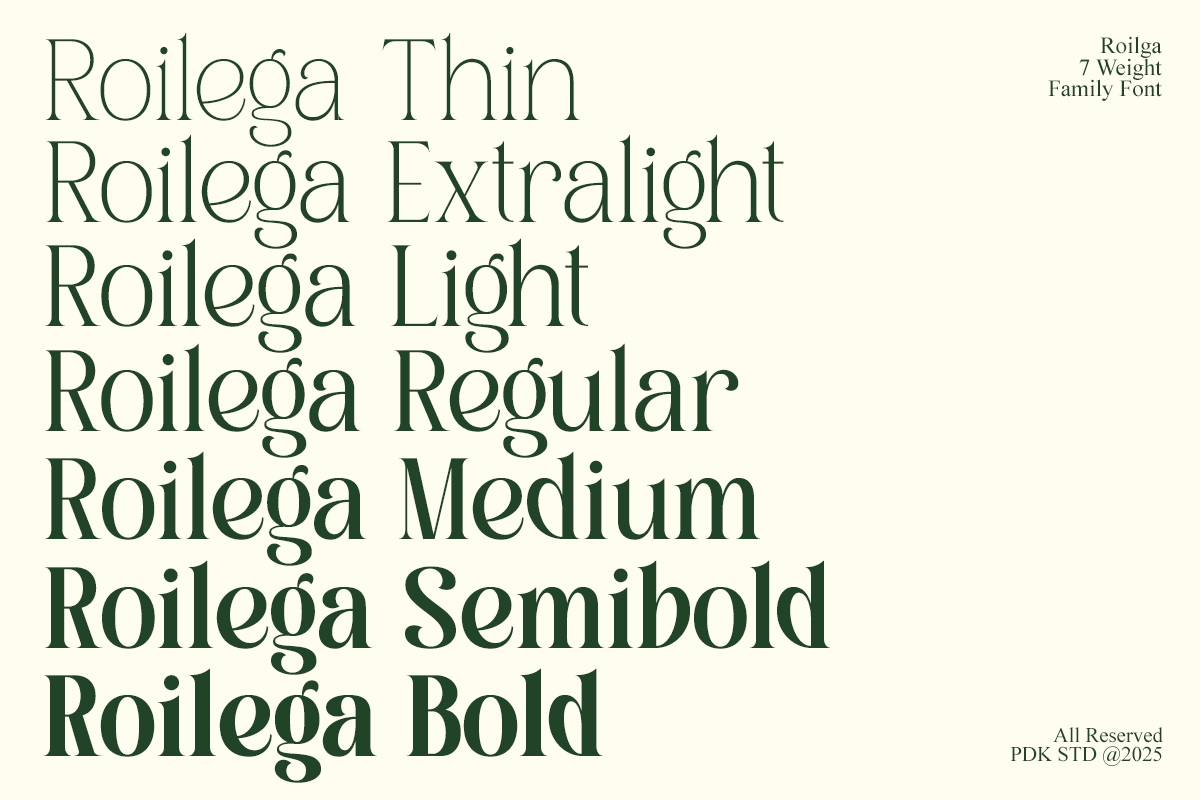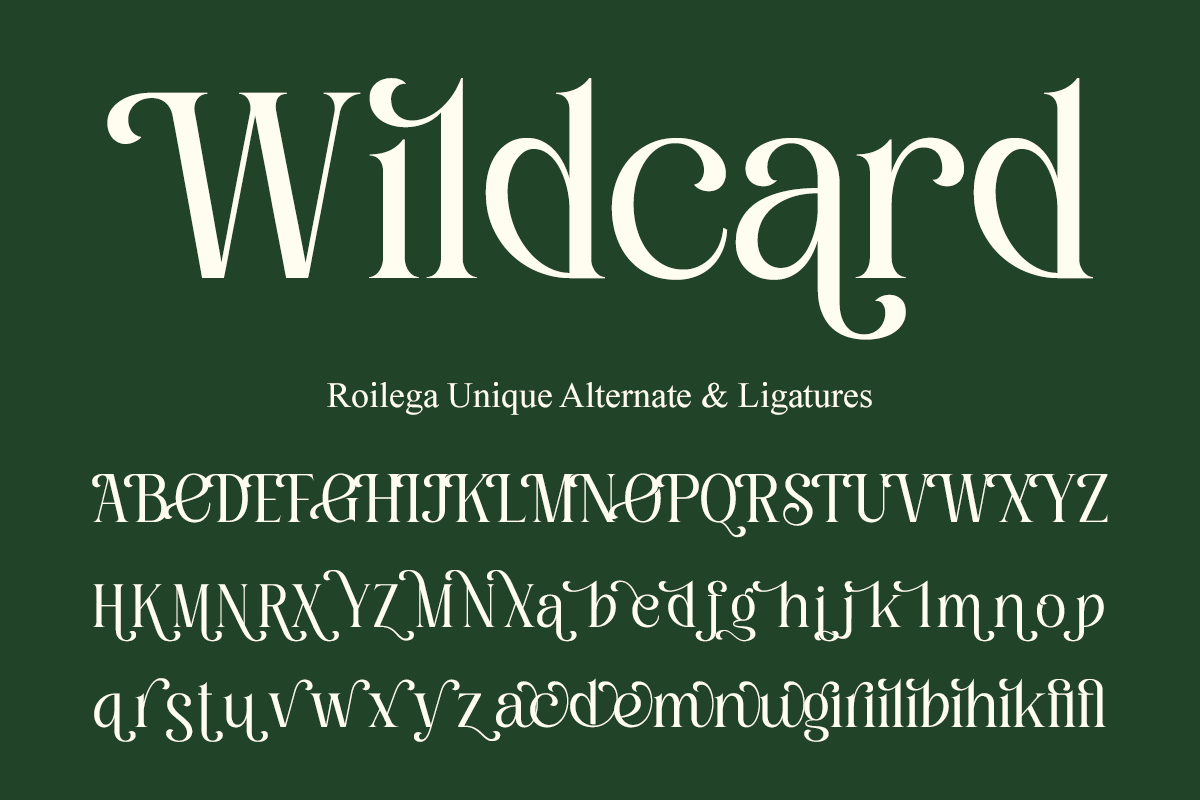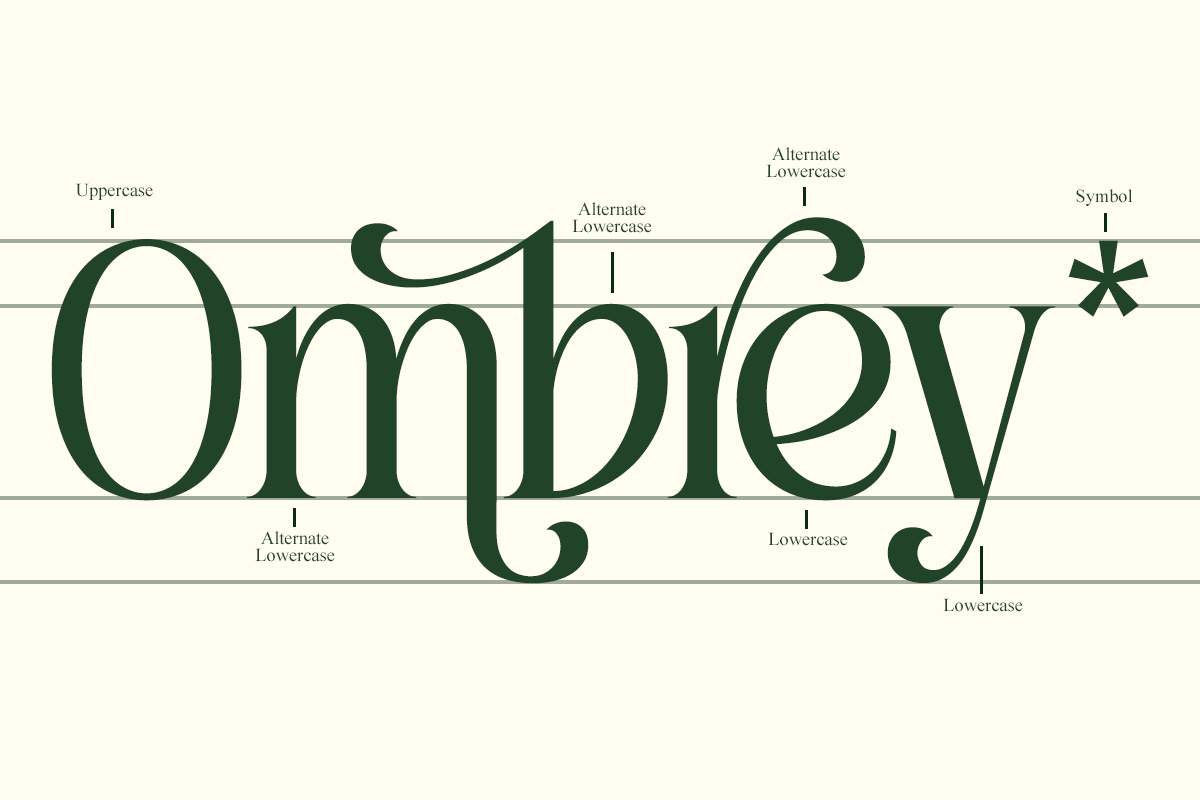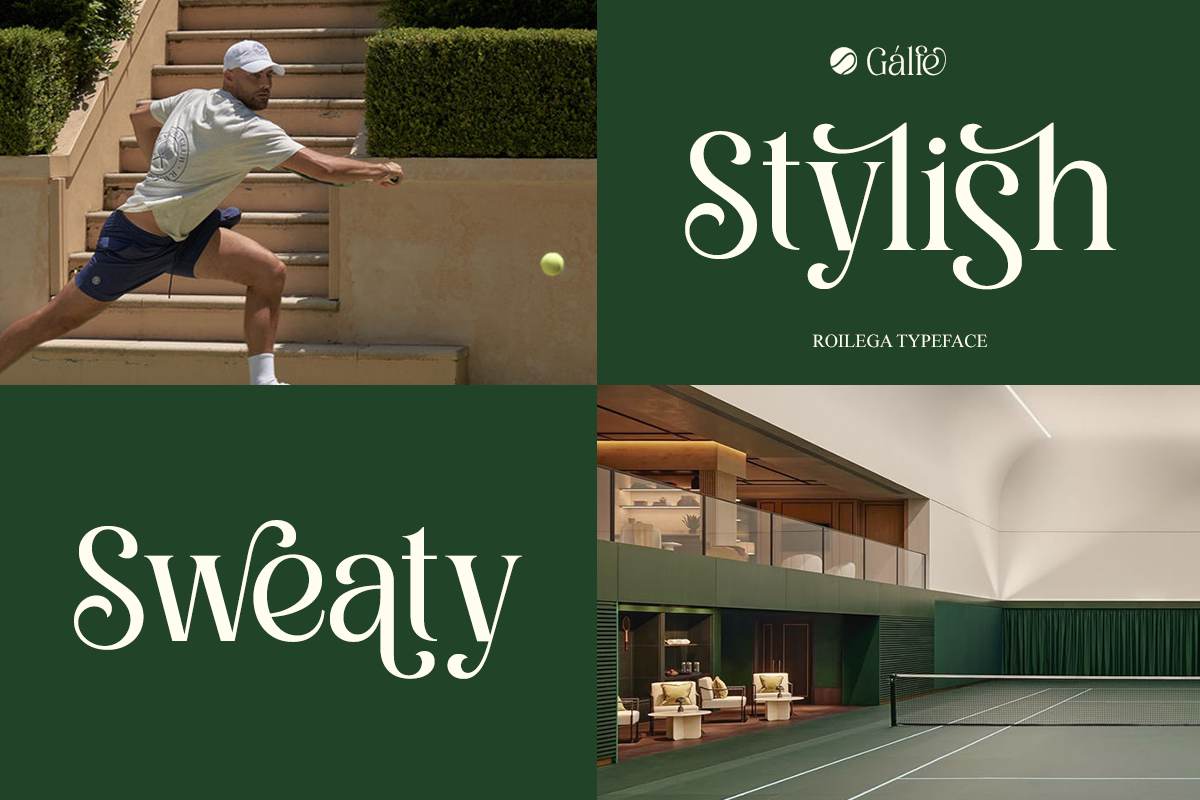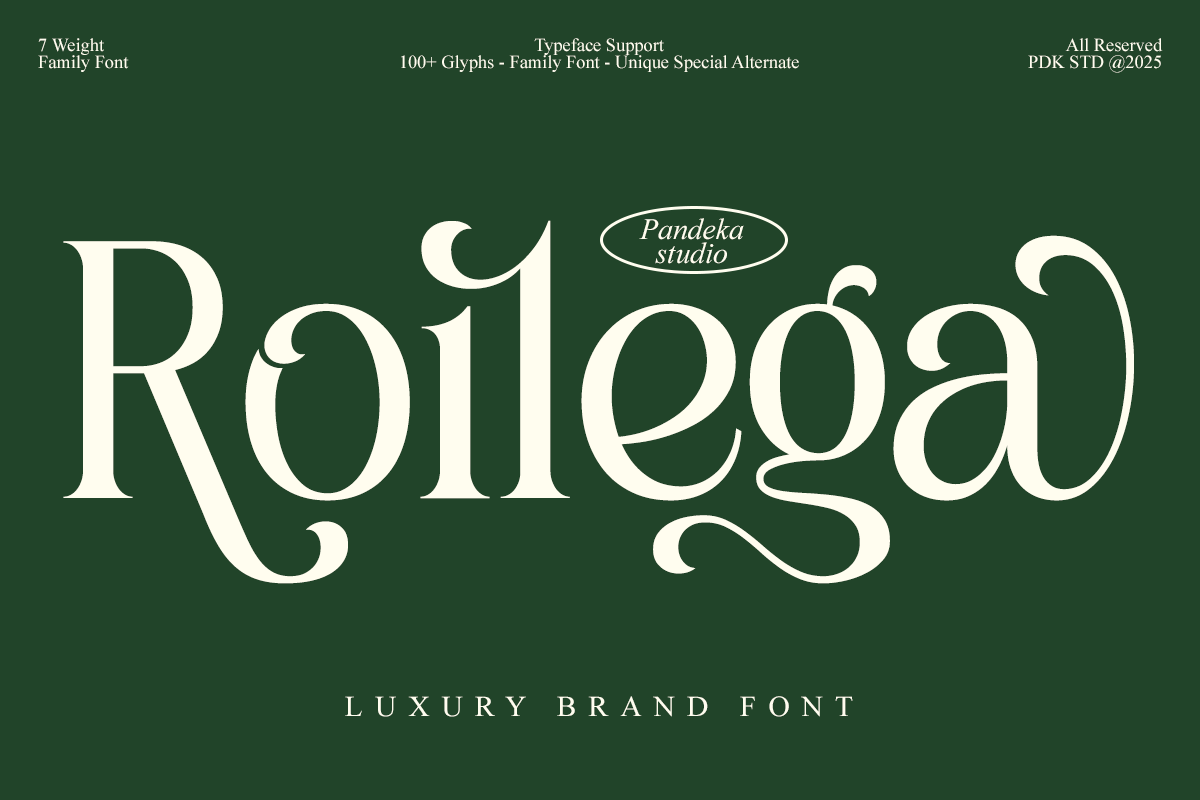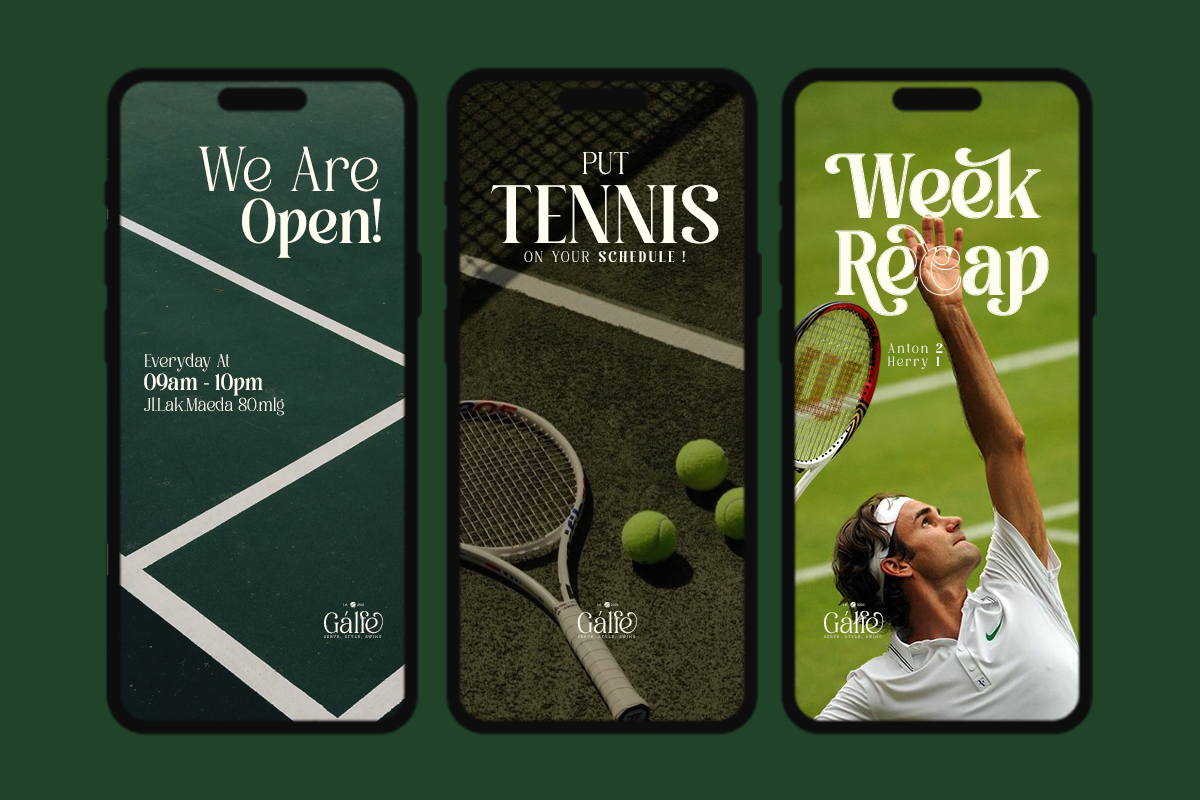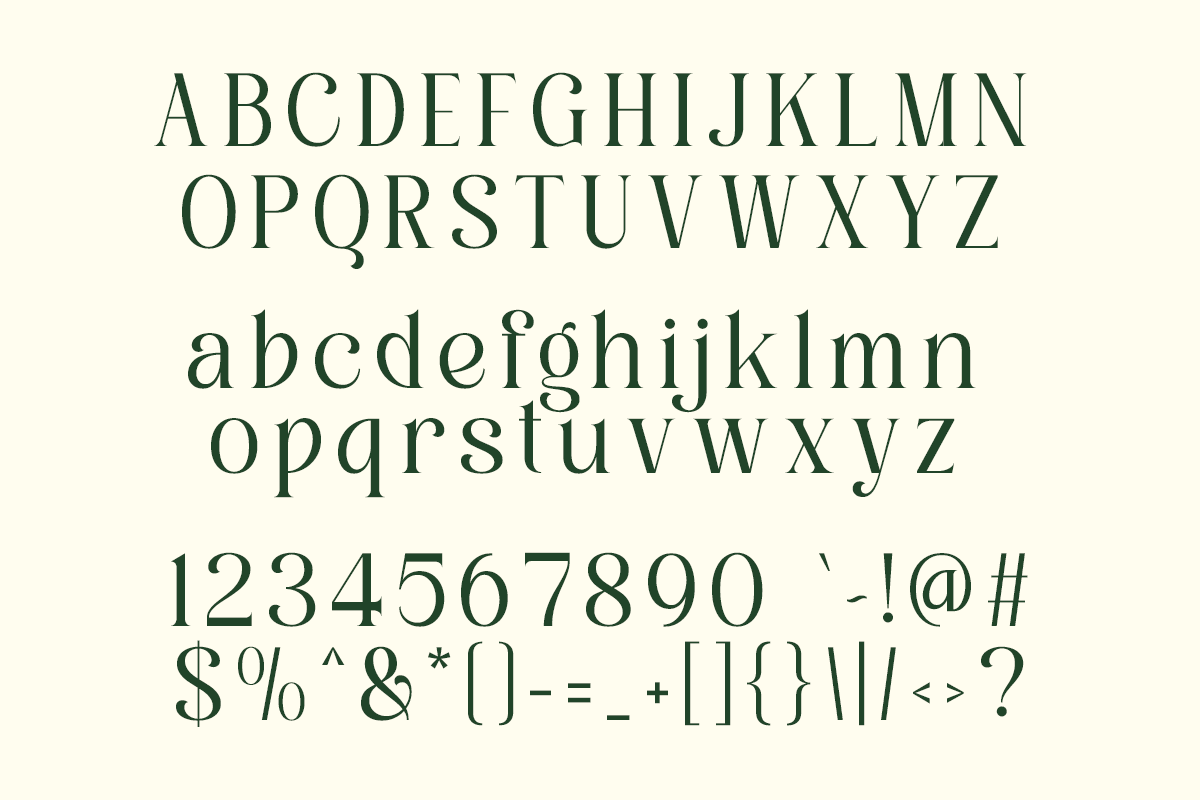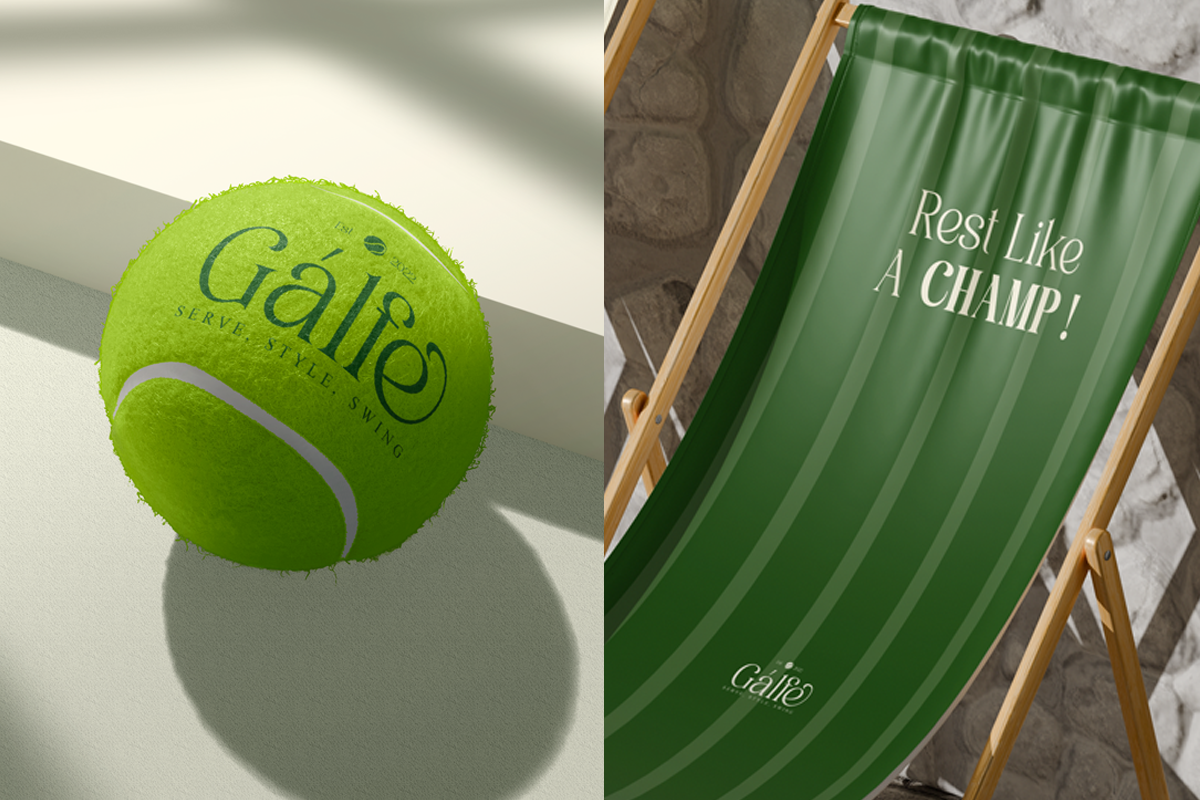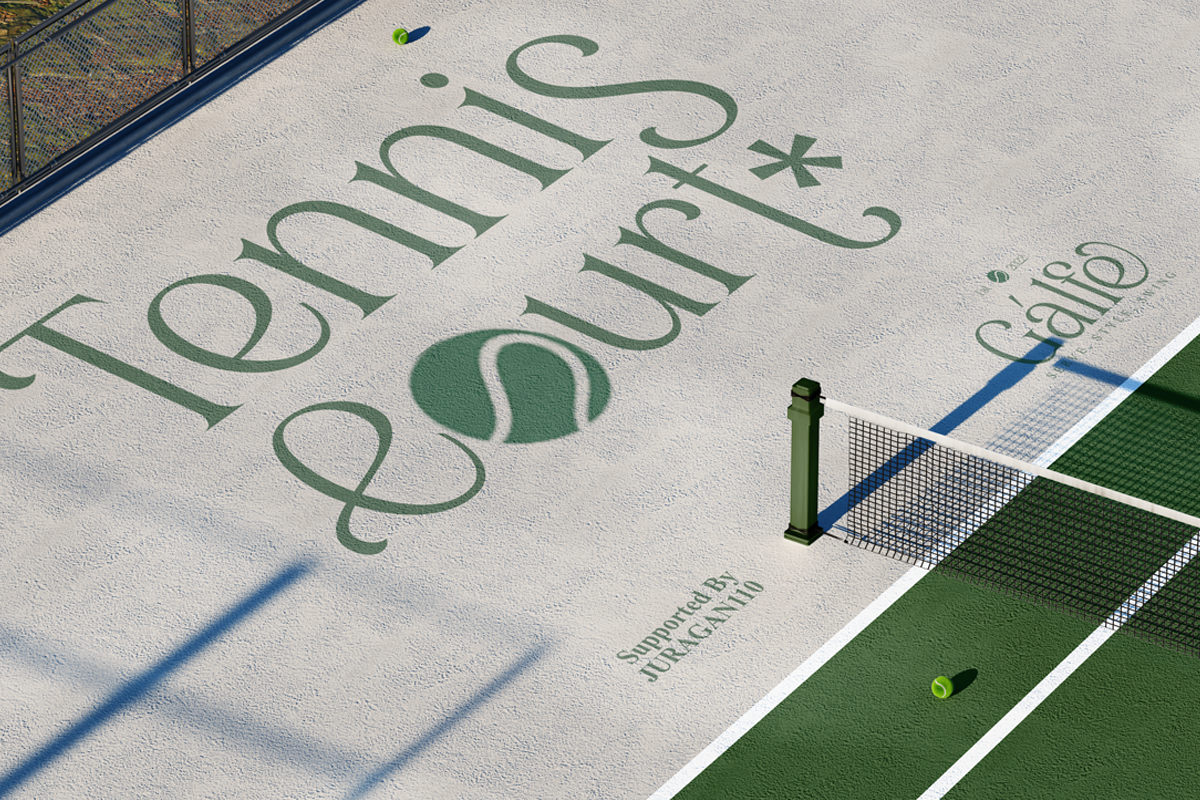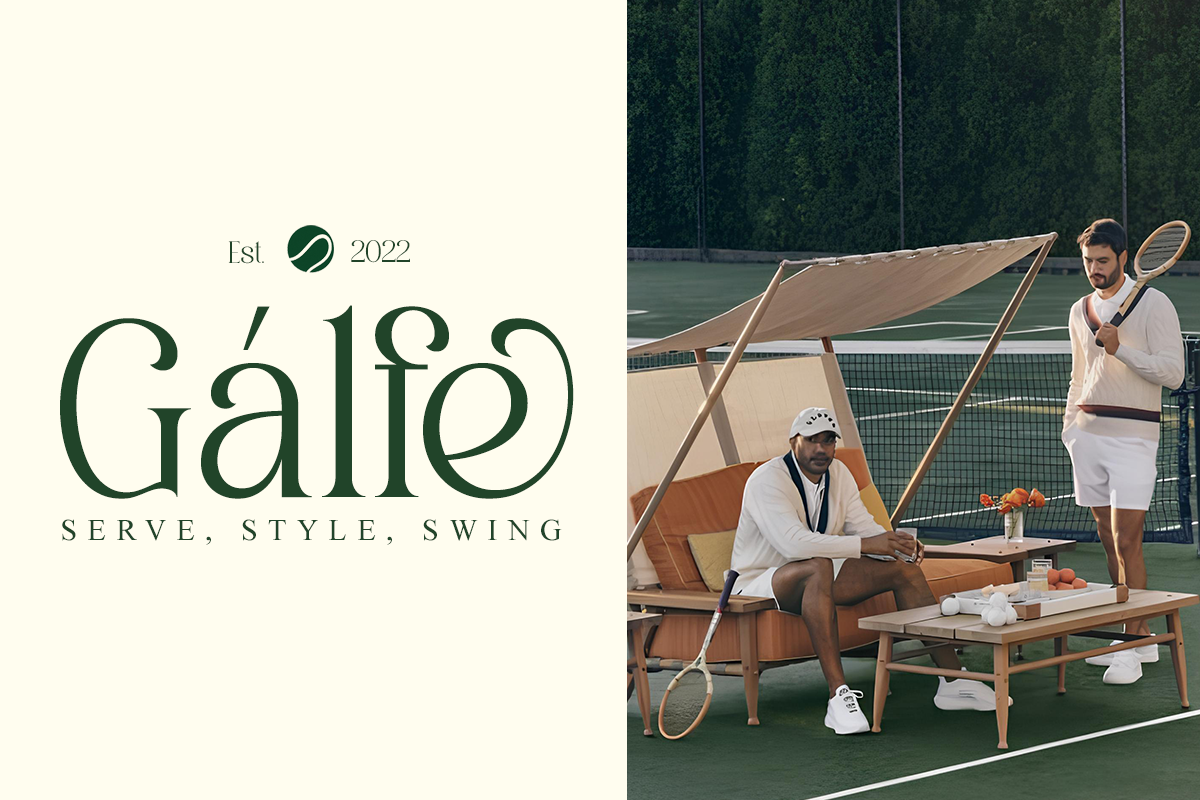
Roilega - Luxury Brand Family Font
Roilega is a refined luxury serif family font crafted for premium branding, editorial design, packaging, and high-end visual identities. Its smooth curves, elegant contrast, and timeless proportions deliver a polished and sophisticated aesthetic suitable for both modern and classic brands.
Featuring 7 styles — Thin to Bold — plus a fully adjustable Variable Font, Roilega allows designers to customize weight seamlessly for print, digital, and responsive layouts. This flexibility makes it ideal for cohesive brand systems, typographic hierarchy, and multi-platform design workflows in Figma, Illustrator, Photoshop, and web environments.
With 68+ stylistic alternates and ligatures, Roilega offers expressive possibilities for custom logotypes, boutique branding, luxury packaging, wedding design, and editorial titles. Every character is crafted to bring clarity, elegance, and a bespoke premium feel to your typography.
- 7 Styles Family: Thin, Extra Light, Light, Regular, Medium, Semi Bold, and Bold
- Full Character Set: Uppercase, lowercase, numbers, symbols, and punctuation
- 68+ alternates and ligatures